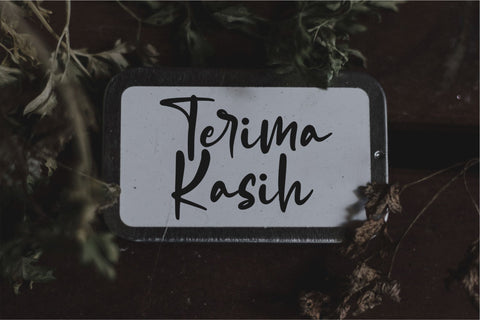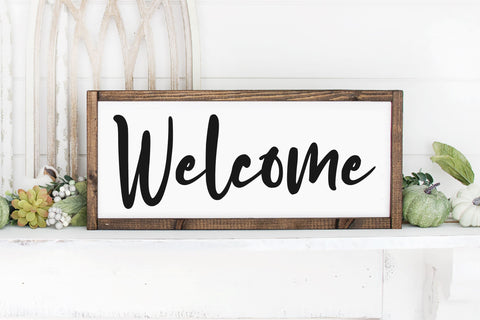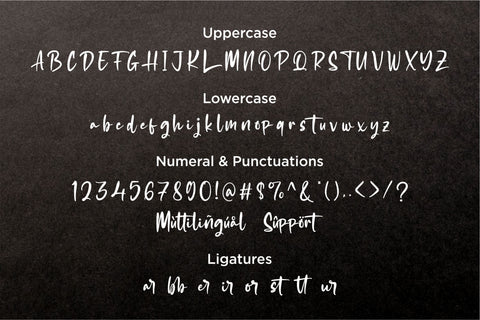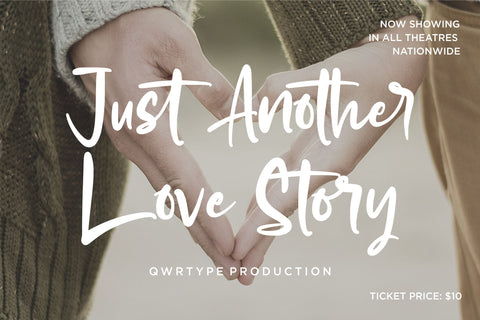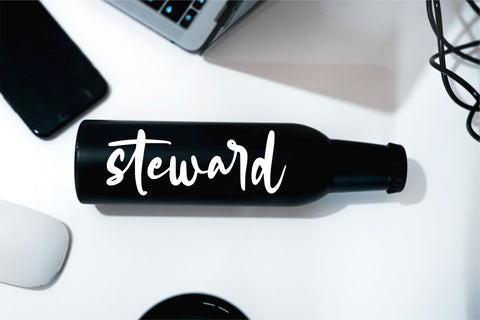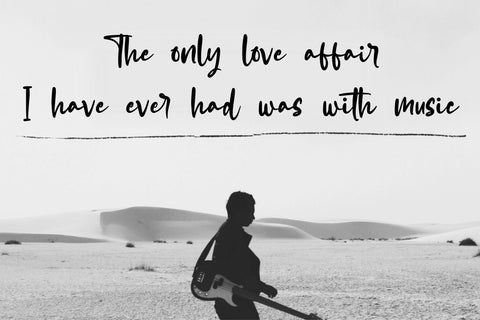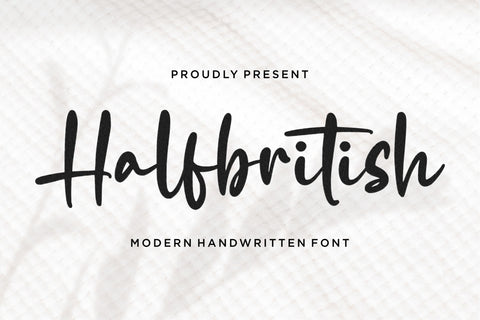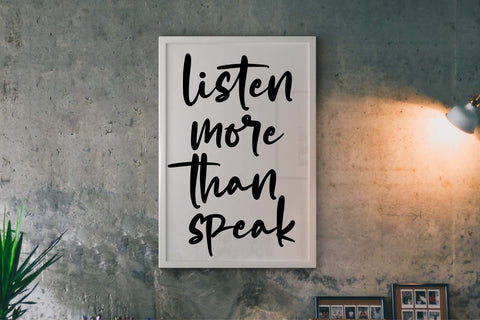
Halfbritish
Introducing by Qwrtype
Proudly Present, Halfbritish
Halfbritish is a Modern Handwritten Font
Halfbritish is perfect for product packaging, branding project, megazine, social media, wedding, or just used to express words above the background.